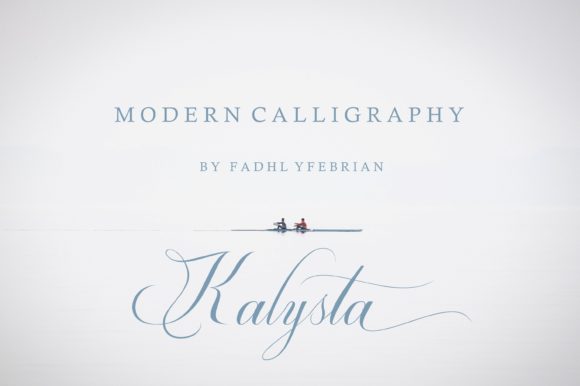
Unleash your creative spirit with Kalysta Font, the captivating script font that exudes charm and elegance. Crafted by the talented fadhly febrian, Kalysta is a handwritten masterpiece that captures the essence of heartfelt communication. Its natural and unique style opens up a world of design possibilities, allowing you to express your individuality like never before.
Immerse yourself in the beauty of Kalysta's sweeping strokes and whimsical curves. Each letter dances across the page, carrying a message of warmth and authenticity. Whether you're designing logos, branding materials, or heartfelt invitations, Kalysta's enchanting touch will leave a lasting impression.
Step into a world where your imagination knows no bounds. Kalysta's versatility knows no limits. Its clean lines and playful personality make it the perfect choice for a wide range of projects. From delicate wedding invitations to eye-catching social media graphics, Kalysta effortlessly elevates your designs, adding a touch of magic to every creation.
With Kalysta, you'll discover a font that speaks to the heart. Its inherent charm and delightful details will captivate your audience, creating a connection that transcends words. Let Kalysta be your voice, conveying messages of love, joy, and inspiration with unmatched grace and beauty.
Embrace Kalysta Font and embark on a creative journey like no other. Its natural flow and captivating style will transform your designs into works of art, leaving a lasting impression on all who behold them. Experience the joy of creating with Kalysta, and let your imagination soar to new heights.